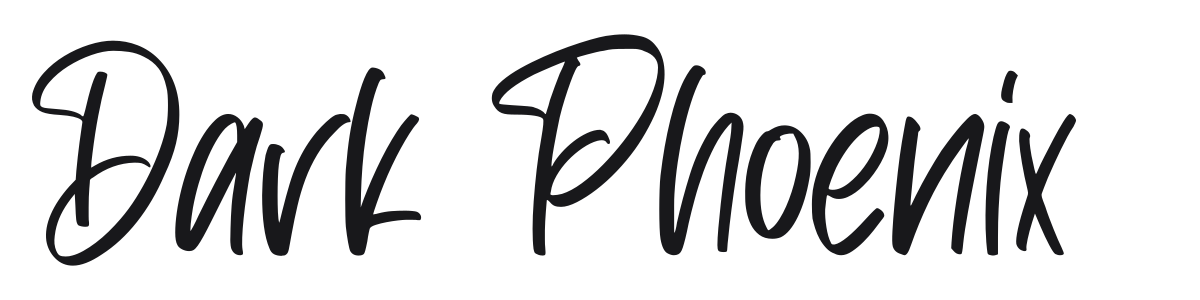
Dark Phoenix
Dark Phoenix is a bold casual script that channels the energy of fast, confident handwriting. The letters flow with natural irregularity, varied slant, and lively ascenders that keep the eye moving. It has the kind of raw, personal warmth that works well on packaging, apparel, and social content.